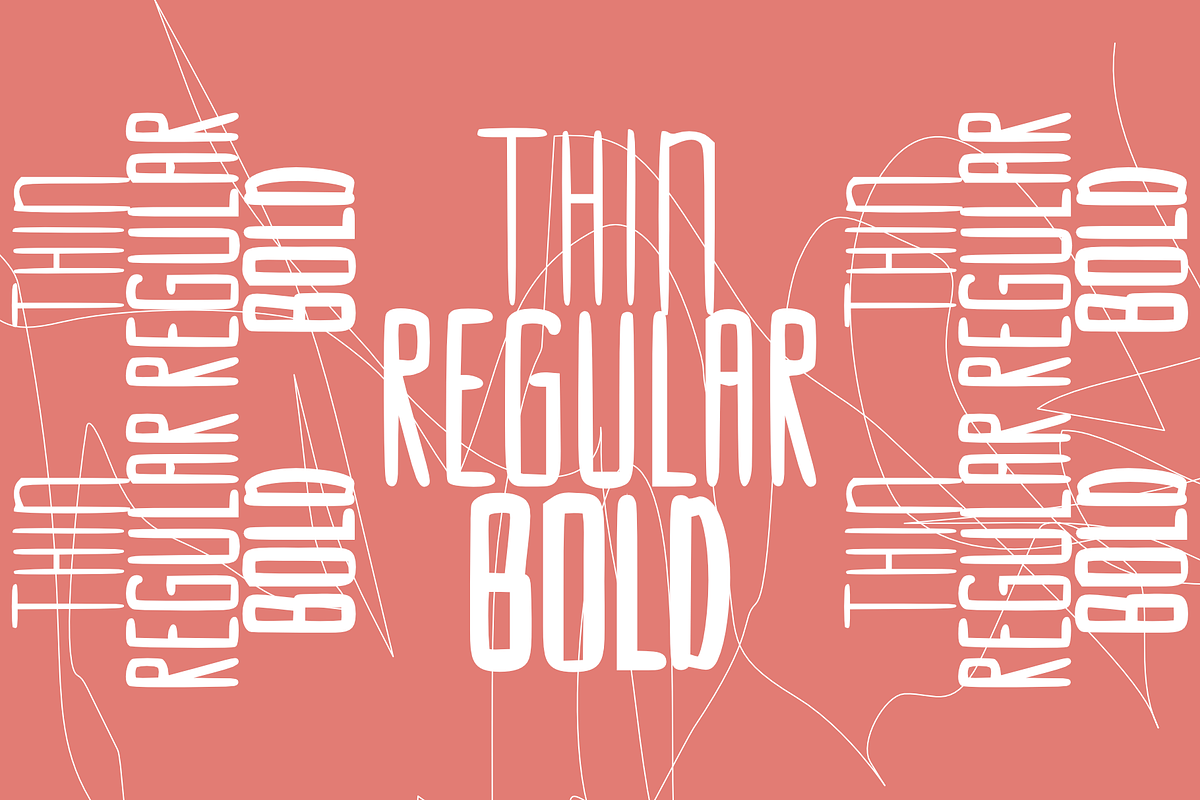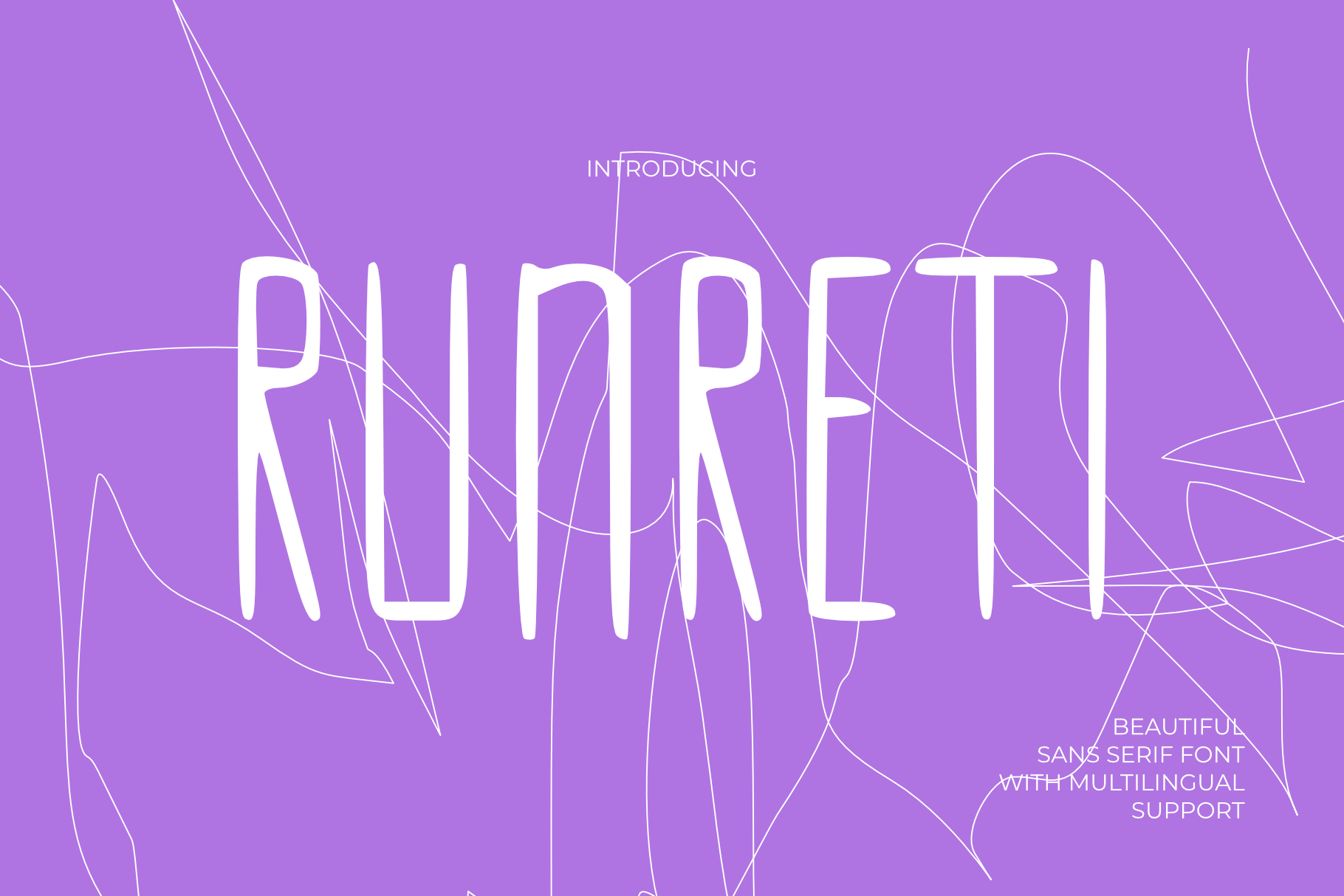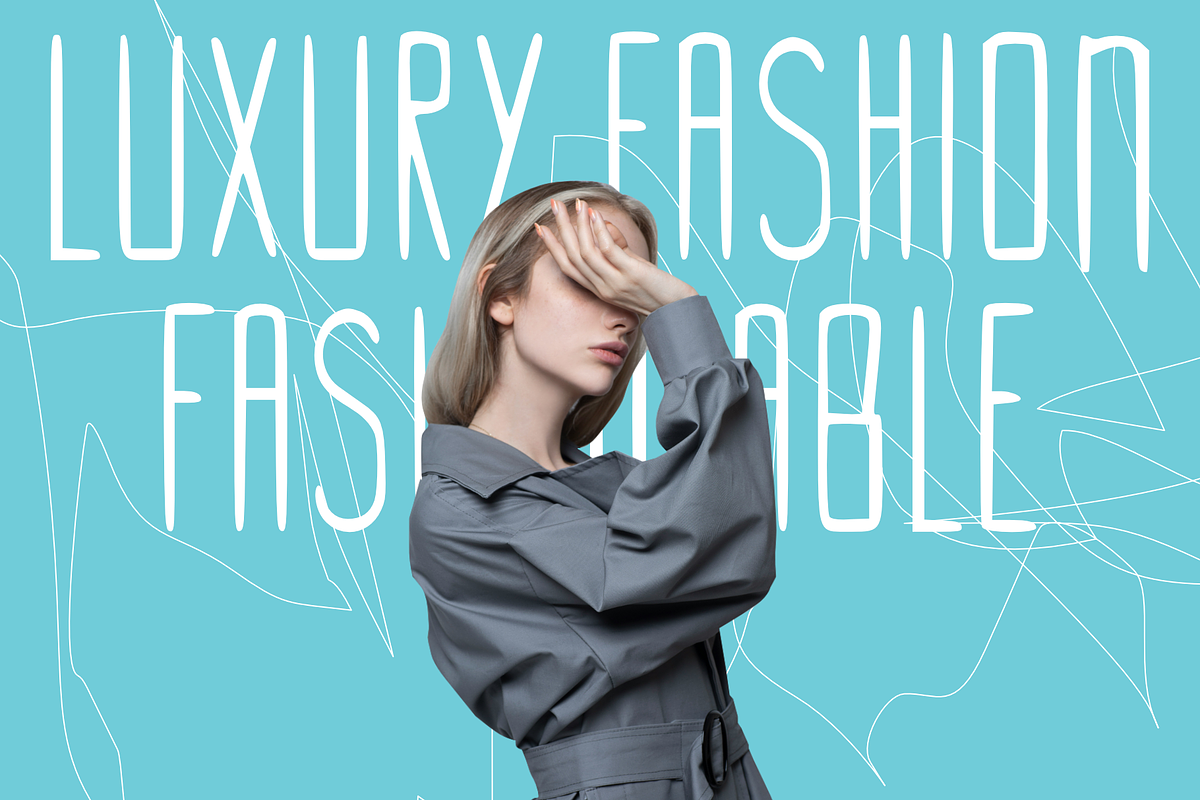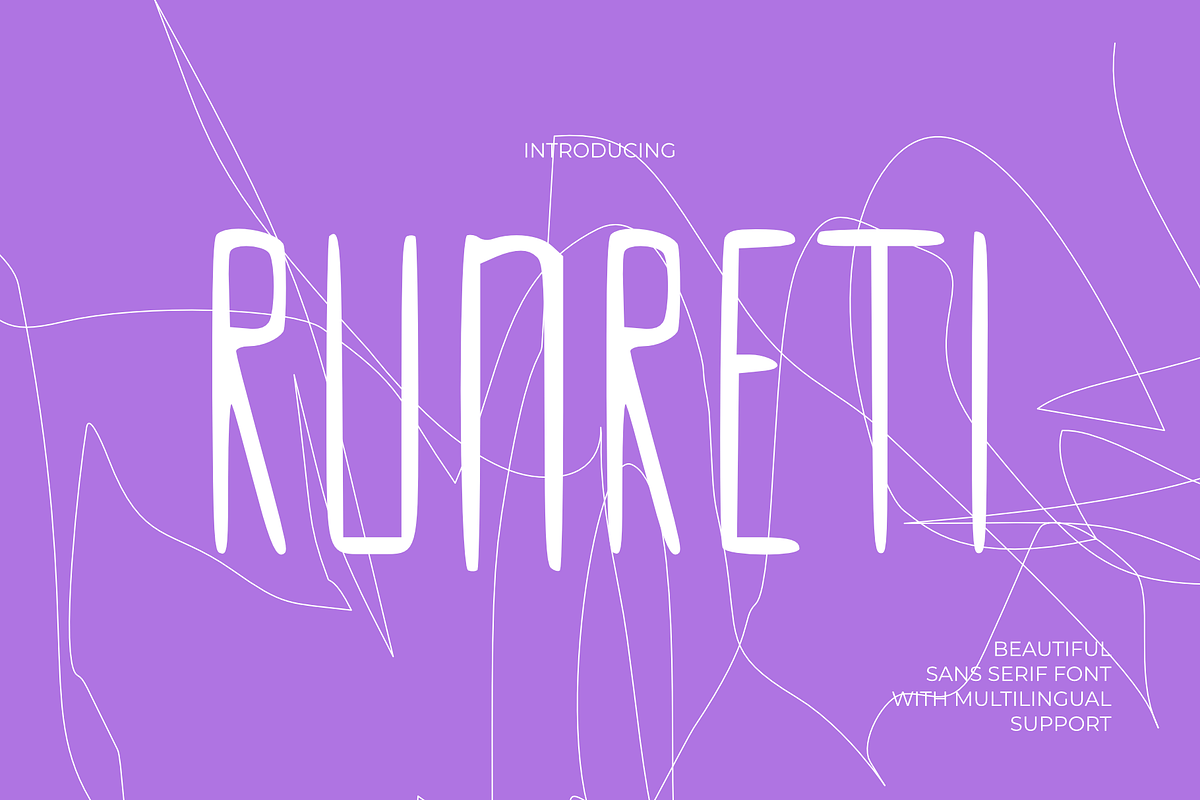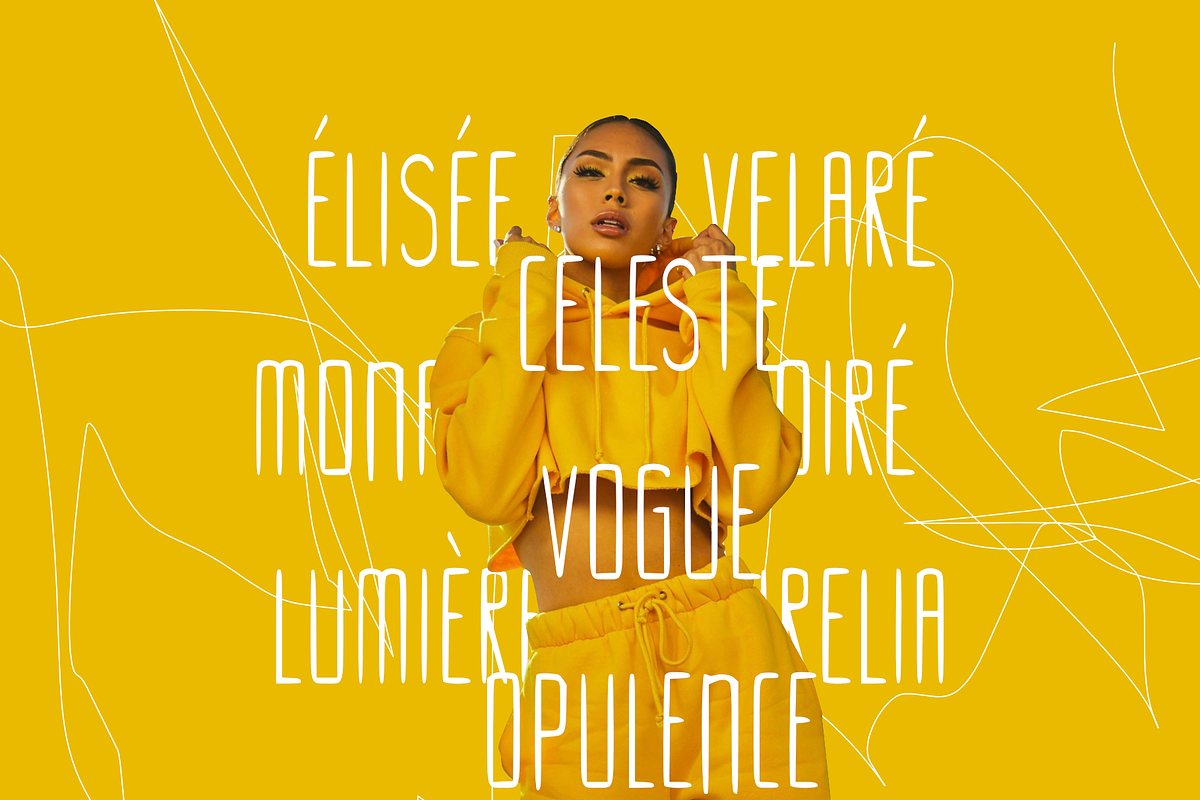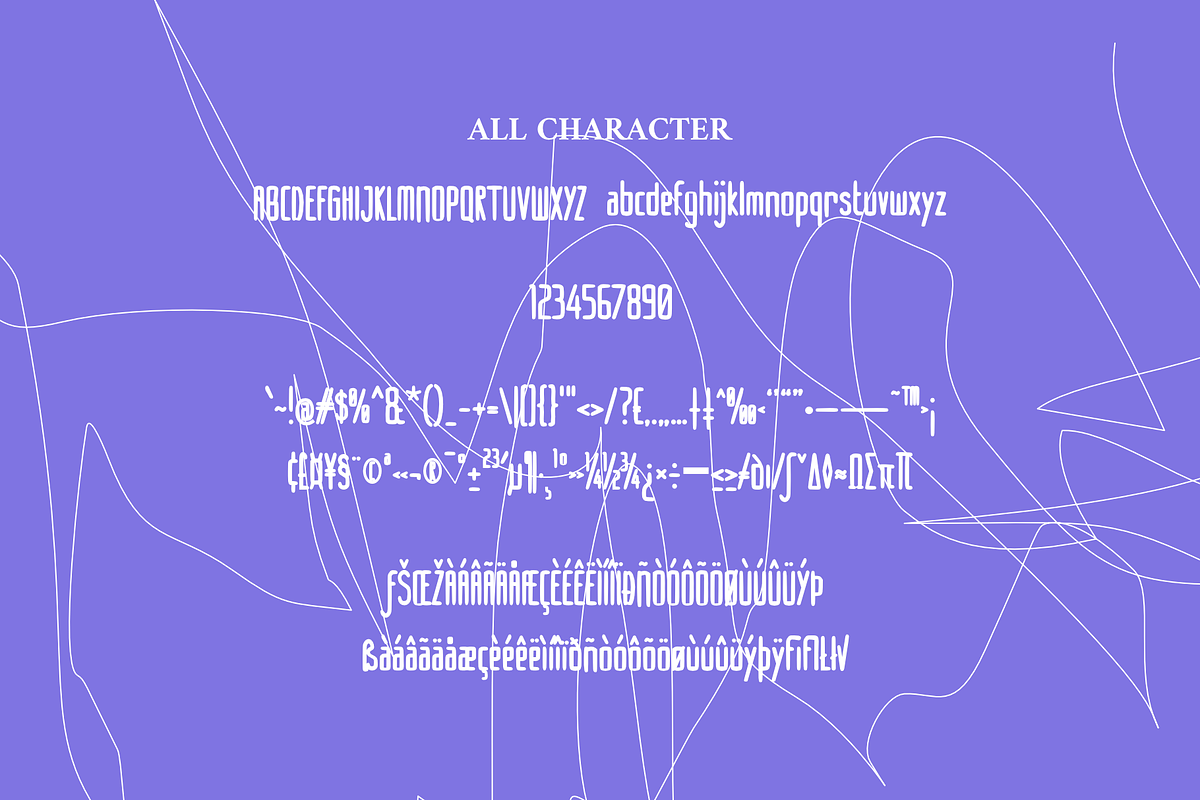
Runreti Stylish Condensed Typeface
This font features a mystical and ornamental fantasy style inspired by medieval calligraphy and ancient folklore aesthetics. The characters are designed with elegant curves, sharp decorative edges, and artistic flourishes that create a magical and dramatic appearance. Its warm golden tone combined with intricate details makes it ideal for fantasy-themed designs, movie titles, game interfaces, book covers, posters, branding, and cultural artwork. The font delivers a strong vintage atmosphere while maintaining readability, giving every design a luxurious and enchanted visual identity.